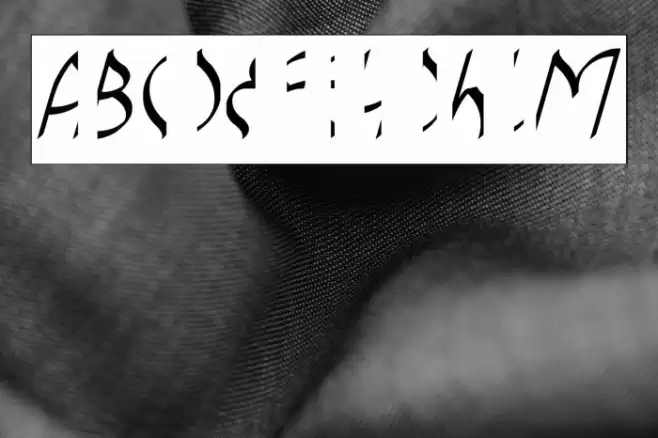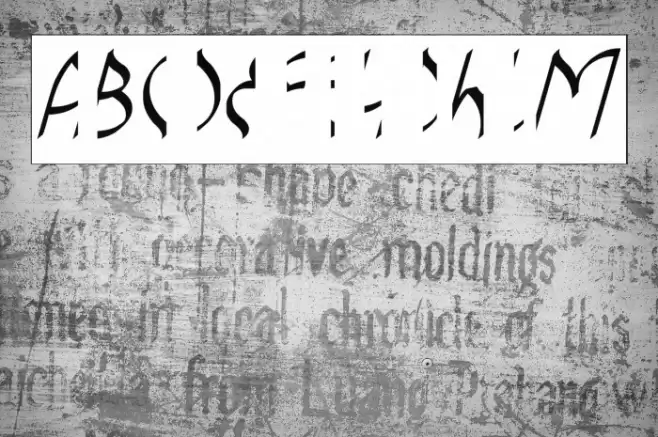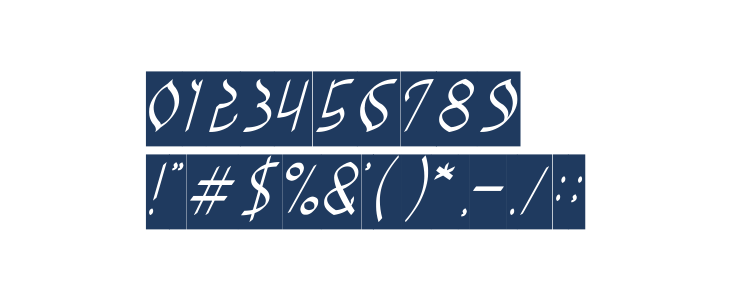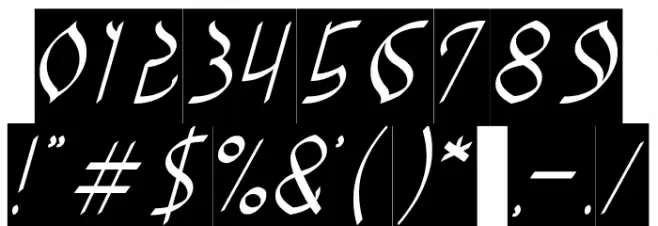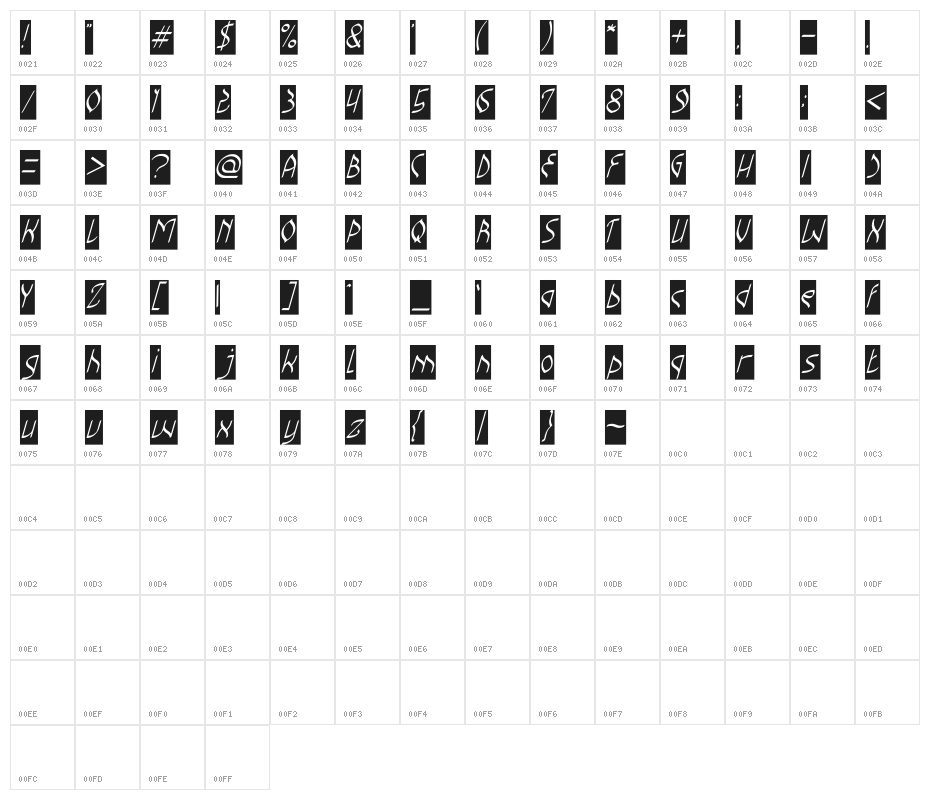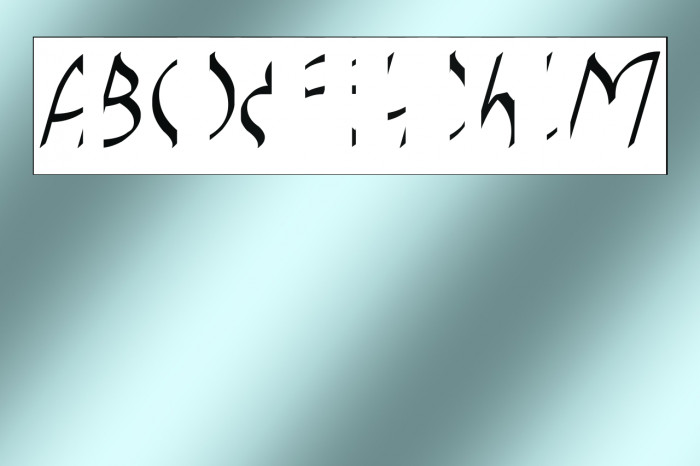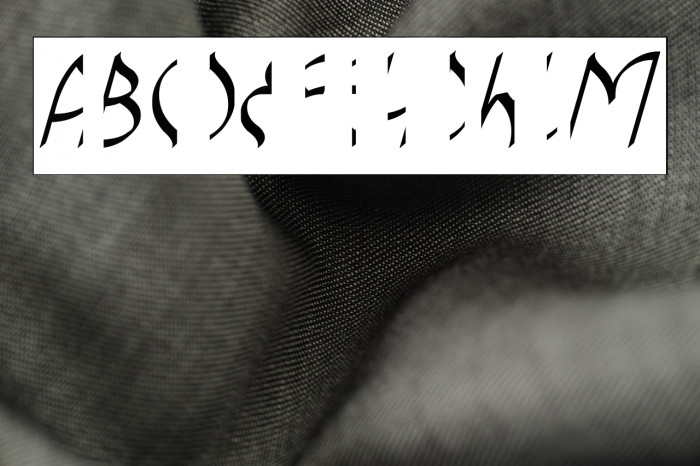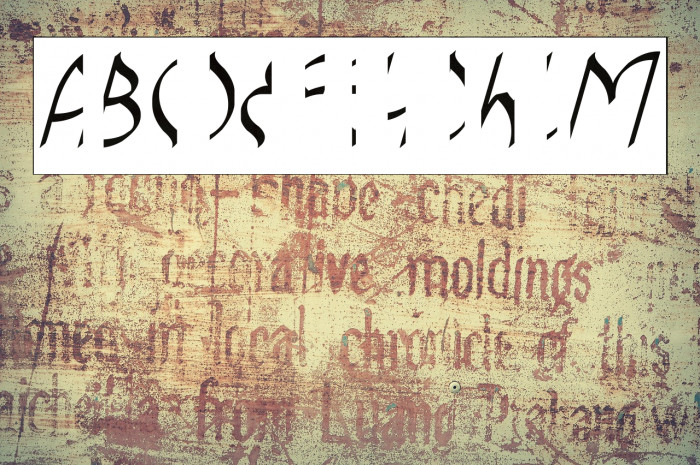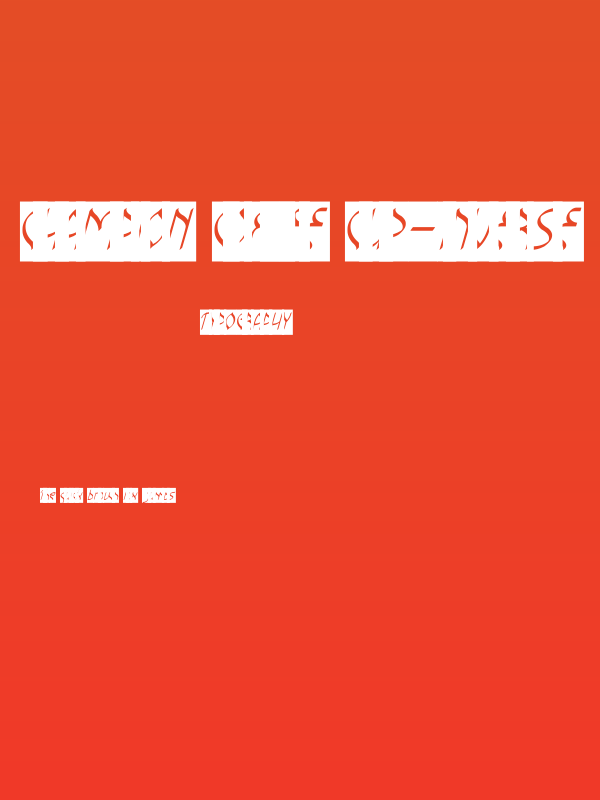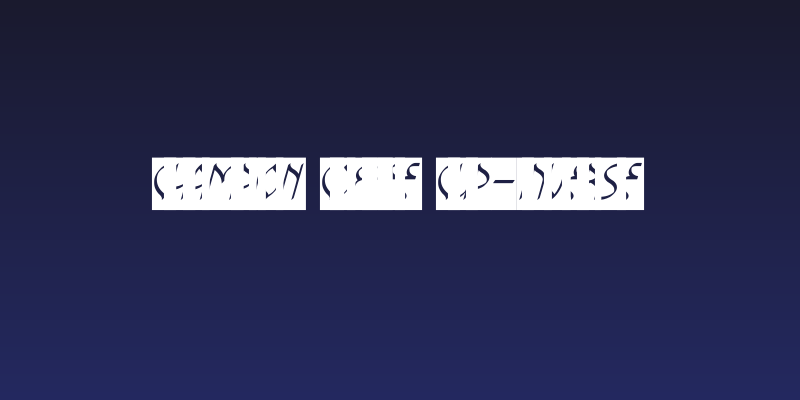
Champion Coffee Cup-Inverse Font
Champion Coffee Cup-Inverse Description
This font features a dynamic and energetic style with sharp, angular strokes that give it a sense of motion and flair. The characters are crafted with a unique blend of curves and edges, creating a visually striking appearance. The uppercase and lowercase letters maintain a consistent design, while the numbers and special characters complement the overall aesthetic. The font's design is reminiscent of brush strokes, adding an artistic touch that makes it stand out. Its bold and expressive nature makes it suitable for creative and impactful designs.
A dynamic, angular font with a brush-like, artistic style from Uncategorized fonts.
- Proposed Projects: Ideal for branding, posters, and creative projects that require a bold and artistic touch.
- Overall Style: Modern, Artistic